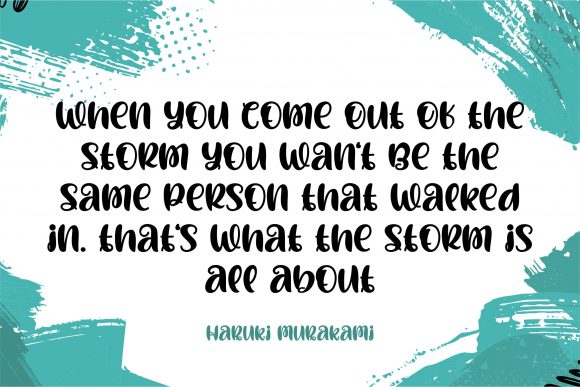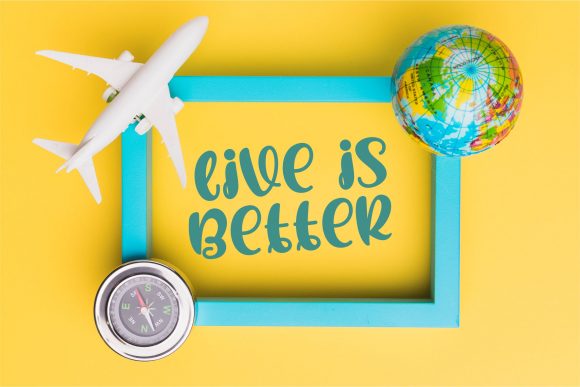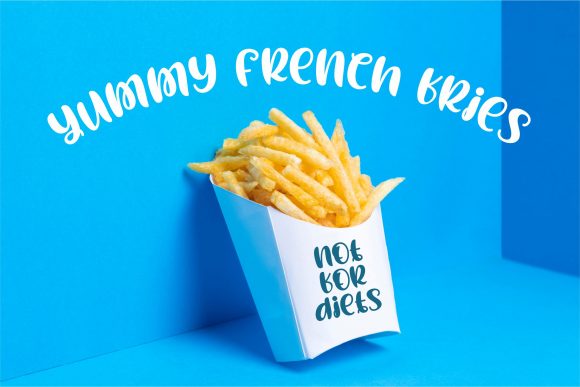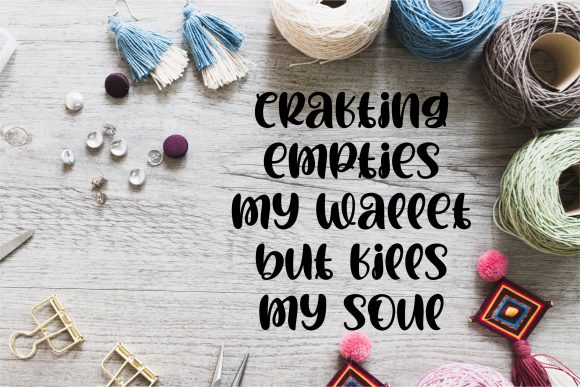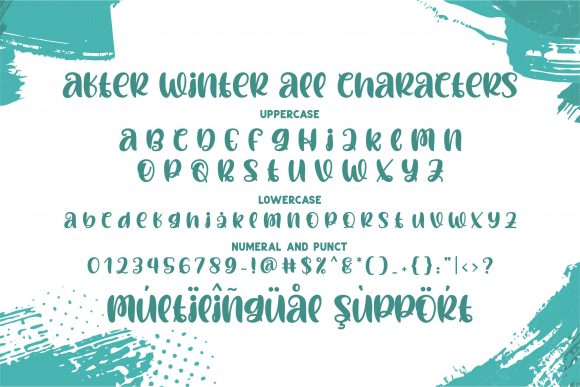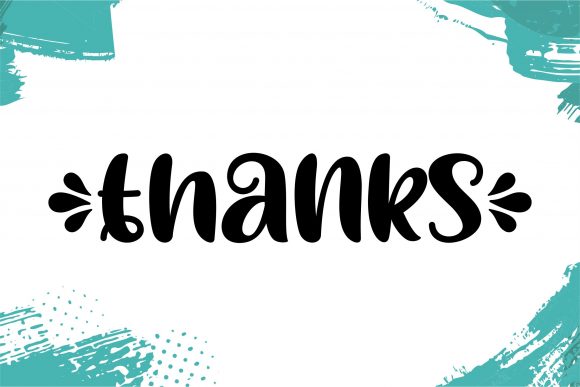
Discover the Charm of After Winter Font: A Quirky and Sweet Display Font
Are you tired of using the same old fonts for your designs? Look no further than the After Winter Font, a unique and captivating display font that’s perfect for adding a touch of whimsy to your creations. In this article, we’ll dive into the world of After Winter Font and explore its features, uses, and benefits for designers and crafters.
What is After Winter Font?
After Winter Font is an incredibly quirky and sweet display font that’s designed to add a playful touch to your designs. With its unique and charming lettering style, this font is sure to capture the attention of your audience. Whether you’re working on a cartoon-related design, a children’s game, or any other creation that requires a lovely touch, After Winter Font is an amazing choice.
Key Features of After Winter Font
- Quirky and Playful Design: After Winter Font features a unique and quirky design that’s perfect for adding a touch of whimsy to your creations.
- Sweet and Charming Lettering Style: The font’s lettering style is sweet and charming, making it perfect for designs that require a lovely touch.
- Display Font: After Winter Font is a display font, making it perfect for headlines, titles, and other prominent text elements.
- Cartoon-Related Designs: The font’s playful design makes it perfect for cartoon-related designs, such as children’s games, animations, and comics.
Uses of After Winter Font
After Winter Font is a versatile font that can be used in a variety of design projects, including:
- Children’s Games and Toys: The font’s playful design makes it perfect for children’s games, toys, and other kids-related designs.
- Cartoon and Animation: After Winter Font is a great choice for cartoon and animation projects, such as character designs, titles, and logos.
- Branding and Packaging: The font’s unique design makes it perfect for branding and packaging projects that require a touch of whimsy.
- Web Design: After Winter Font can be used in web design projects, such as headlines, titles, and other prominent text elements.
Benefits of Using After Winter Font
Using After Winter Font in your designs offers several benefits, including:
- Unique and Eye-Catching Design: The font’s unique design is sure to capture the attention of your audience.
- Playful and Whimsical Touch: After Winter Font adds a playful and whimsical touch to your designs, making them more engaging and fun.
- Versatility: The font can be used in a variety of design projects, from children’s games to branding and packaging.
- Easy to Read: Despite its playful design, After Winter Font is easy to read, making it perfect for use in headlines and titles.
Tips for Using After Winter Font
Here are some tips for using After Winter Font in your designs:
- Use it as a Display Font: After Winter Font is designed to be used as a display font, so use it for headlines, titles, and other prominent text elements.
- Pair it with Other Fonts: Experiment with pairing After Winter Font with other fonts to create a unique and interesting design.
- Use it in Color: The font’s playful design makes it perfect for use in color, so don’t be afraid to experiment with different colors and gradients.
After Winter Font is a quirky and sweet display font that’s perfect for adding a touch of whimsy to your designs. With its unique and charming lettering style, this font is sure to capture the attention of your audience. Whether you’re working on a cartoon-related design, a children’s game, or any other creation that requires a lovely touch, After Winter Font is an amazing choice. So why not give it a try and see how it can add a playful touch to your designs?